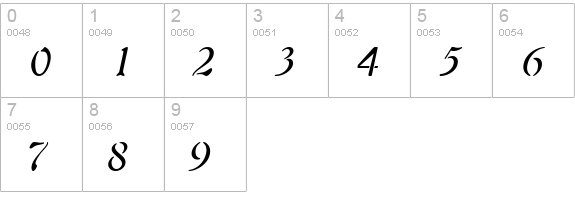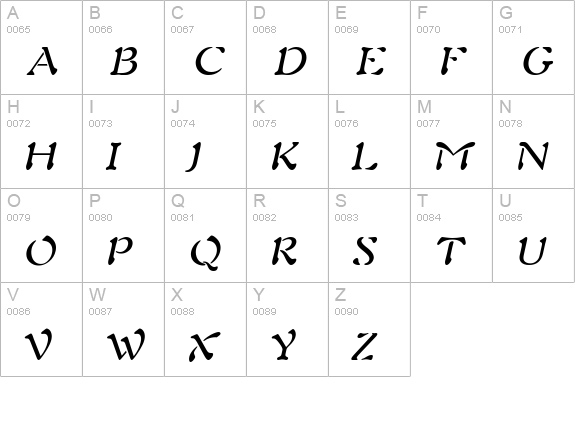
Freedom 9 Italic is a distinctive, italic variant in the Freedom typeface family \xE2\x80\x94 well suited to design and typography projects.
Introducing Freedom 9 Italic font, a versatile and elegant typeface that exudes a sense of freedom and creativity. The italicized design adds a touch of sophistication to any project, making it perfect for both professional and personal use. With its sleek lines and modern appeal, Freedom 9 Italic is sure to elevate your designs to the next level. This font is freely available for download at FontsMarket.com, allowing you to effortlessly incorporate it into your creative projects without any restrictions. Whether you're designing a website, creating invitations, or working on branding materials, Freedom 9 Italic is the perfect choice for adding a touch of style and flair. Embrace the freedom to express yourself with this stunning font today!